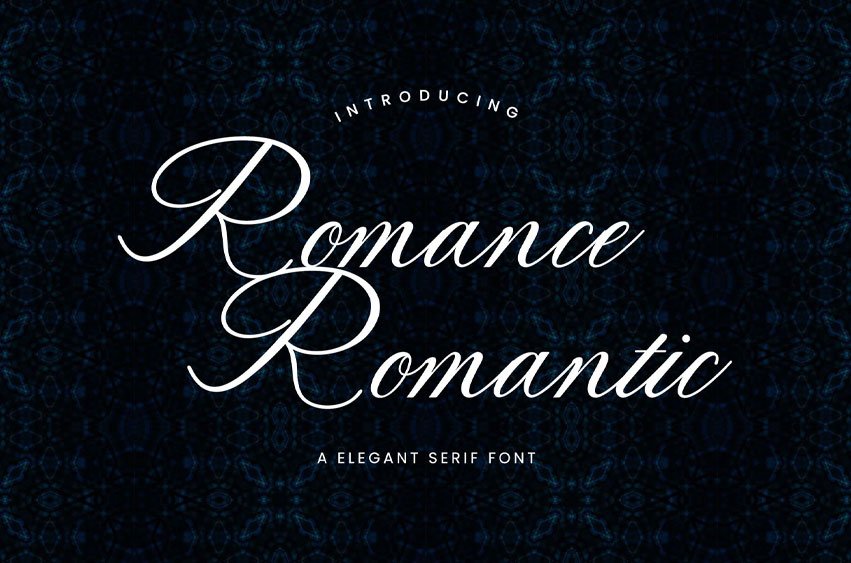
Romance Romantic Font Handwritten Font brings that perfect handwritten touch you’ve been searching for. It’s got this beautiful flowing quality that feels both classic and current. The letters dance along a natural baseline, giving your text that authentic, hand-lettered look without being overly fancy or hard to read.
What sets this font apart is how versatile it is. Whether you’re working on something super elegant like wedding invitations or just want to add some personality to your social media posts, Romantic adapts beautifully to whatever you throw at it.
- PUA encoded characters – this means you can easily access all those gorgeous swashes and alternates
- Ligatures and alternates – give you tons of options to make your text look naturally varied
- Multilingual support – works with different languages and special characters
This isn’t just another script font. Romantic has character – literally and figuratively. The letterforms have this organic quality that makes text feel warm and personal, but it’s still polished enough for professional work. Plus, with all the alternates and swashes included, you can customize the look to match your project’s vibe.
Perfect for branding, invitations, packaging, social graphics, or anywhere you want that handcrafted feel without the actual handwriting. Trust me, once you start using Romantic, you’ll find excuses to use it everywhere!